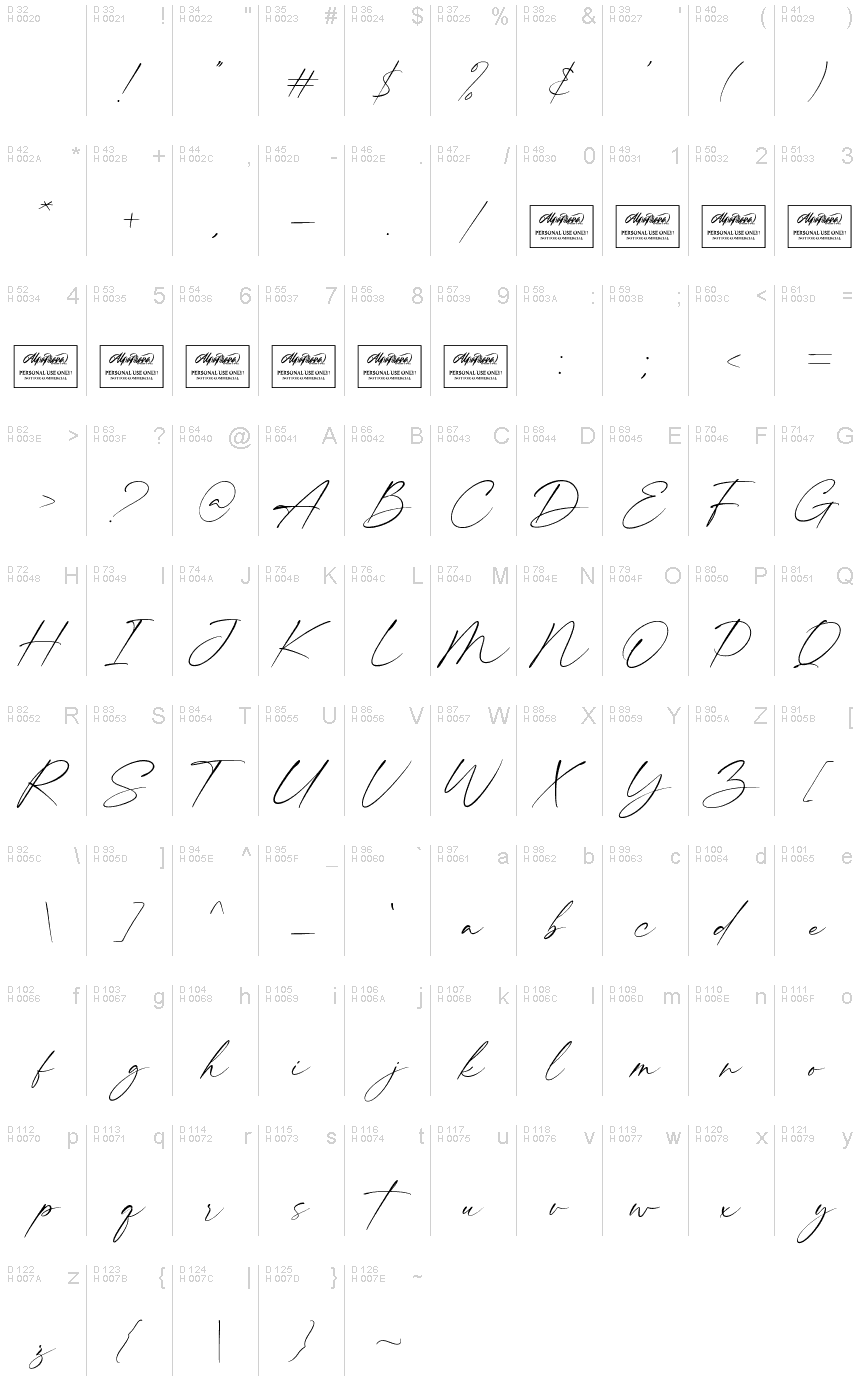
Felicity
Introducing Felicity, the whimsical and charming handwritten font designed by Alpaprana Studio. With its light weight and semi-condensed width, Felicity is perfect for adding a touch of elegance and playfulness to your projects. Whether you're designing invitations, branding materials, or social media graphics, this font will bring joy to your audience. Its effortless flow and natural curves create a personalized feel that can elevate any design. Use Felicity for projects ranging from wedding invitations to children's books, bringing a touch of magic to every page. Add some Felicity to your designs today!